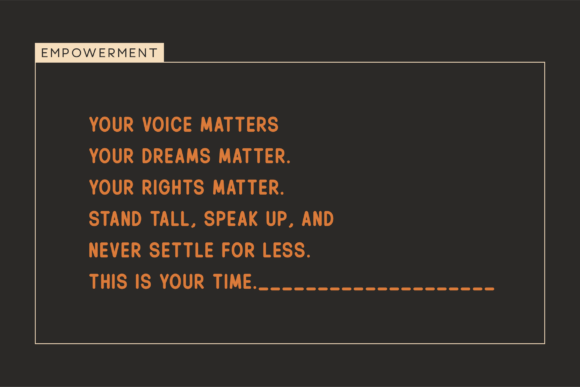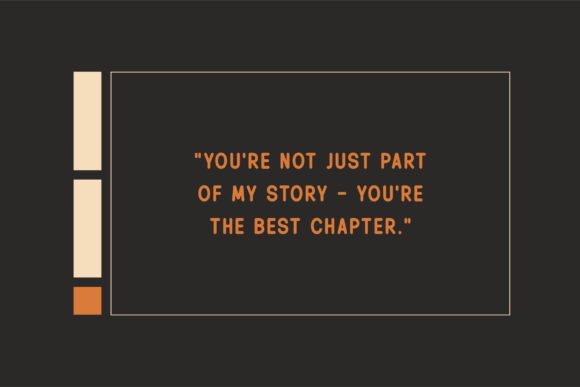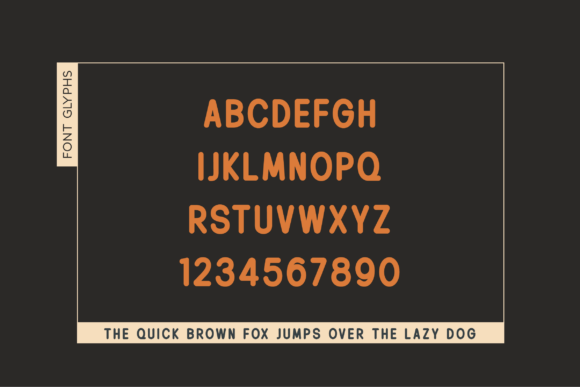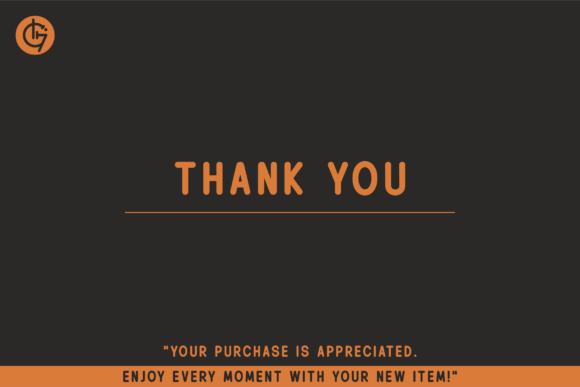
Discover the Unique Charm of Dlitolime Font: Elevate Your Designs with an Artistic yet Modern Twist
Are you on the lookout for a font that adds a touch of eccentricity and modernity to your designs? Look no further than Dlitolime, an all-caps font that is as versatile as it is charming. This distinctive font cleverly combines capital letters from A-Z, digits from 0-9, accented characters, and punctuation, making it an excellent choice for a multitude of design mediums.
The Artistic yet Modern Vibe of Dlitolime
Dlitolime is not just any font; it’s an artistic statement. Its unique design merges simplicity with an eccentric touch, making it perfect for designers who want to add a playful yet sophisticated element to their work. Whether you’re crafting social media posts, working on handcrafted projects, or designing apparel, decals, personalized cards, or invitations, Dlitolime seamlessly integrates into any designing sphere.
One of the standout features of Dlitolime is its versatility. This font is not limited to a specific type of project or medium. Its adaptability makes it a favorite among designers who work across various platforms. Here are some ways you can use Dlitolime:
- Social Media: Stand out on social media platforms with eye-catching posts and stories that showcase your creativity.
- Handcrafted Projects: Add a personal touch to your handmade crafts, making them truly unique.
- Apparel and Decals: Create bold and stylish designs for t-shirts, hoodies, and decals that make a statement.
- Personalized Cards and Invitations: Elevate your greeting cards and invitations with a touch of elegance and playfulness.
Effortless Elegance in Your Creations
Dlitolime brings an effortless elegance to your designs, making it perfect for those who love to make a bold and playful statement. Its simplicity ensures that your message is clear and readable, while its unique design elements add an artistic flair. This balance makes Dlitolime an excellent choice for designers who want to push the boundaries of creativity without compromising on readability.
Why Dlitolime Stands Out
In a sea of fonts, Dlitolime stands out for several reasons:
- Unique Design: The combination of capital letters, digits, accented characters, and punctuation in an all-caps format gives Dlitolime a distinctive look.
- Simplicity and Elegance: Despite its eccentric nature, Dlitolime maintains a level of simplicity that ensures it can be used in a variety of contexts.
- Versatility: Its adaptability across different mediums and projects makes it a valuable addition to any designer’s toolkit.
Dlitolime is more than just a font; it’s a design statement. Its unique blend of eccentricity and simplicity, combined with its versatility, makes it an ideal choice for designers and crafters looking to add a modern yet artistic touch to their work. Whether you’re a professional designer or a hobbyist, Dlitolime offers the perfect opportunity to elevate your designs and make a bold, playful statement. Immerse yourself in the charm of Dlitolime and discover a new world of creative possibilities.